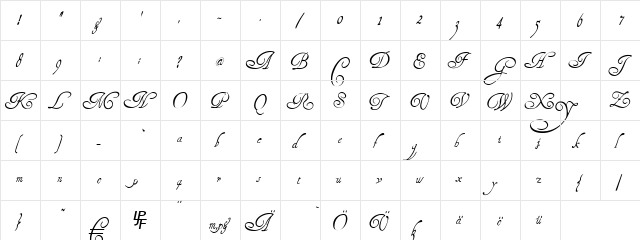
HenryMorganHand Regular
Design Context for HenryMorganHand Typeface
HenryMorganHand flows with the natural rhythm of handwritten lettering, making it ideal for designs that call for warmth and personal expression.
Font Pairing: Combine HenryMorganHand with a simple geometric sans for maximum contrast — the tension between flowing curves and clean structure is a classic typographic pairing.
Pro Tip: Use HenryMorganHand for short runs of text — names, titles, or taglines. Extended body copy in script faces tires the eye quickly.